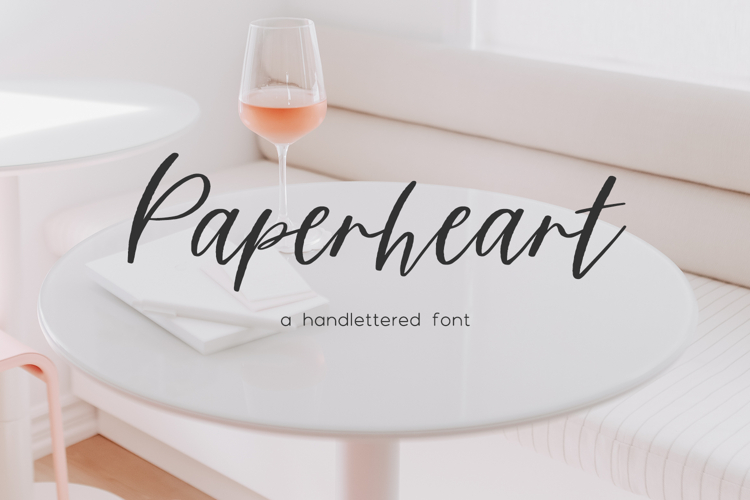
Introducing Paperheart, a lightly textured brush font. Paperheart toes the line between a signature font, and something a bit more calligraphy-like, with a slight feminine feel.
Paperheart is best for:
- social media graphics or quote graphics
- logos + branding with a modern feel
- website design + website accents